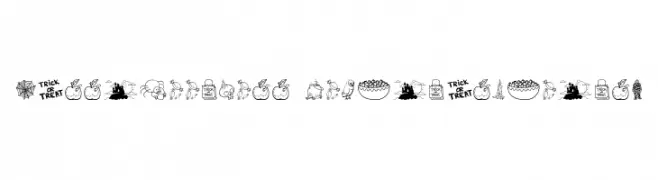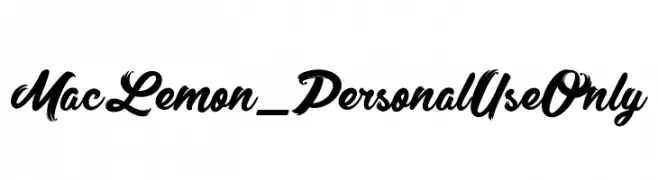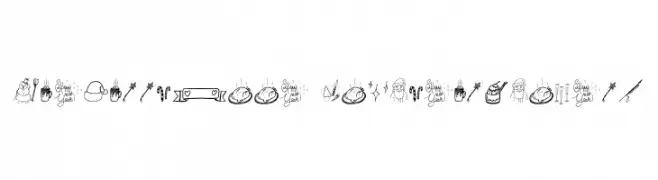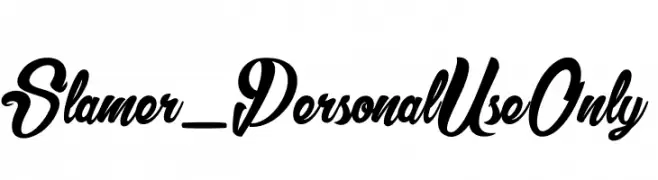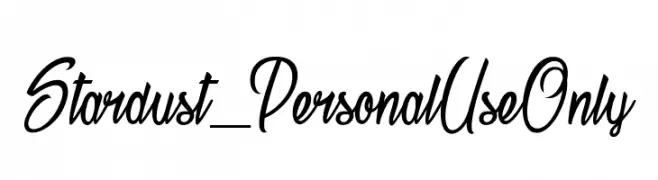
A whimsical, Halloween-themed font featuring playful hand-drawn illustrations.
A collection of festive and decorative holiday-themed illustrations.
A dynamic and flowing script font with elegant curves and a slightly slanted style.
A whimsical, cursive-like font with artistic flair and elegance.
A bold, cursive font with fluid, interconnected letters and elegant flourishes.
A bold, brush-style script font with dynamic, flowing characters.
A playful and elegant script font with flowing, connected letters.
A dynamic and elegant script font with flowing, cursive letterforms.
A bold, energetic brush script font with dynamic strokes.